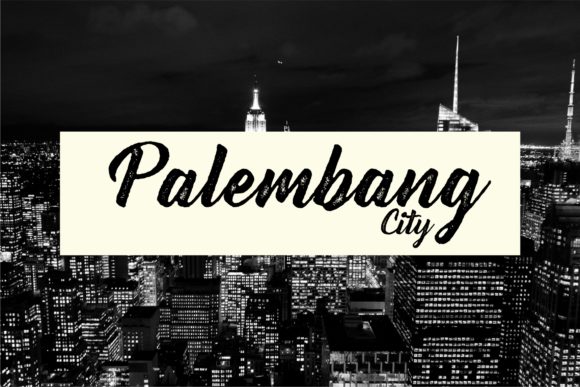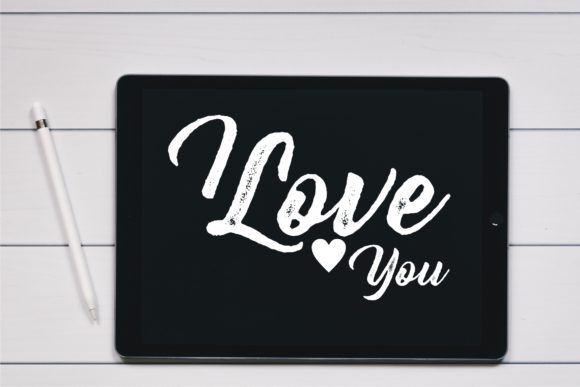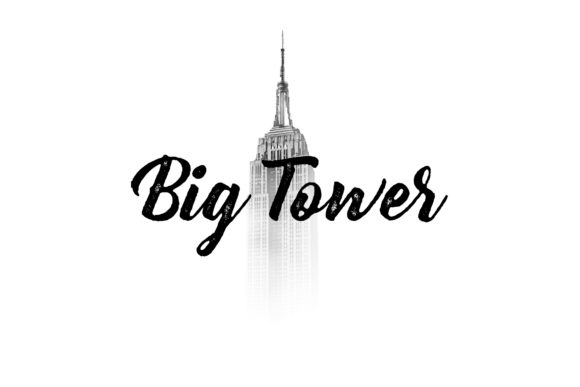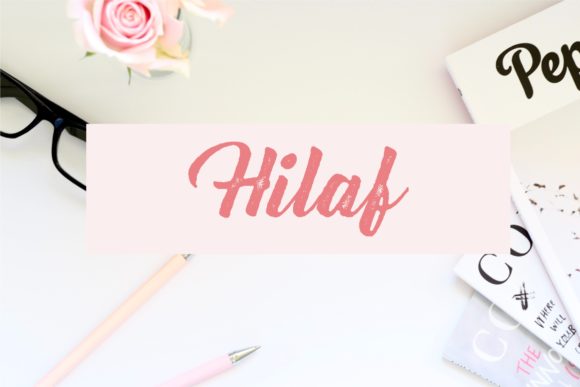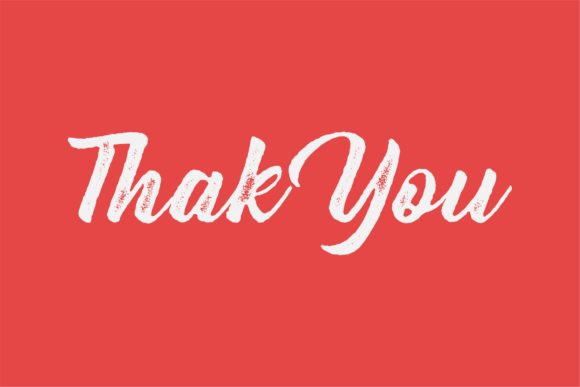
Introduction to Rattash Font Font
Fonts play a crucial role in design, and the Rattash Font font is a typeface that brings both character and versatility to any project. Whether you’re working on a branding project, a website, or a print design, the Rattash Font font offers a unique style that can elevate your work.
Rattash is a fun and playful handwritten font with a bold twist.
It will turn any design idea into a true standout .
Key Features of Rattash Font Font
Why Choose Rattash Font Font?
The Rattash Font font is more than just a typeface – it’s a design tool that helps you communicate your message with style and clarity. Its unique character set and versatile design make it suitable for a wide range of applications, from elegant invitations to bold headlines.
With its carefully crafted letterforms and balanced proportions, the Rattash Font font ensures readability and visual appeal across all mediums.
What makes Rattash Font font special?
The Rattash Font font stands out with its unique design, exceptional readability, and versatility across various design applications.